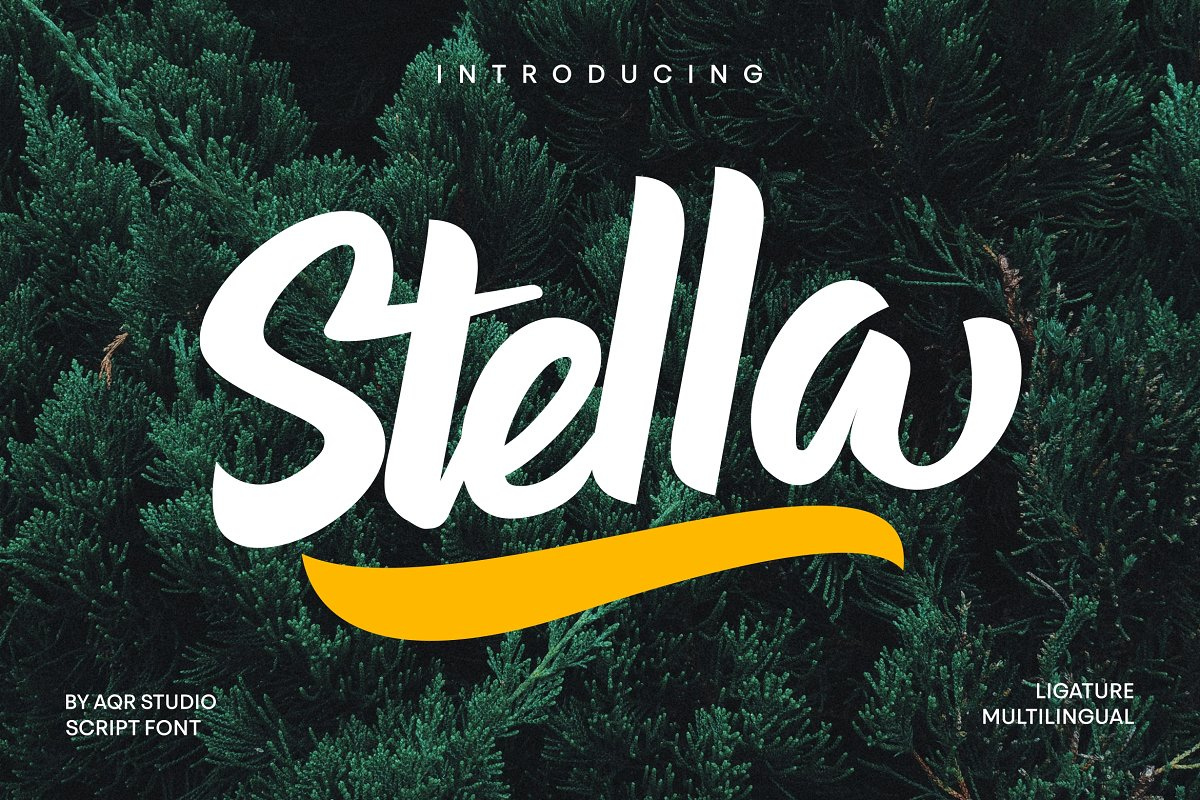
Stella Typeface
Stella Typeface is perfect for celestial brand identities, luxury astronomy equipment marketing, stargazing event materials, space exploration campaigns, night sky photography branding, cosmic wellness centers, stellar jewelry packaging, and luminous lifestyle designs.
What makes Stella Typeface exciting is its brilliantly stellar character that captures the mesmerizing beauty and infinite wonder of starlight through elegantly luminous letterforms that seem to twinkle with cosmic radiance and celestial magic. The font features graceful proportions with star-inspired details that evoke the timeless fascination and navigational guidance found in the night sky's most brilliant beacons. Its celestial aesthetic and stellar authenticity make it perfect for brands that want to communicate brilliance, guidance, and the inspirational power of reaching for the stars while creating memorable experiences that connect audiences with the infinite possibilities and eternal beauty of the cosmos.
Stella Typeface family includes various luminous weights such as Light, Regular, Medium, and Bold variations, often featuring star-inspired alternates and celestial decorative elements. The family may include astronomical symbols, stellar ornaments, and cosmic ligatures that enhance the font's celestial aesthetic, providing designers with comprehensive options for creating brilliant typographic compositions that celebrate the beauty of stars and the wonder of cosmic exploration.